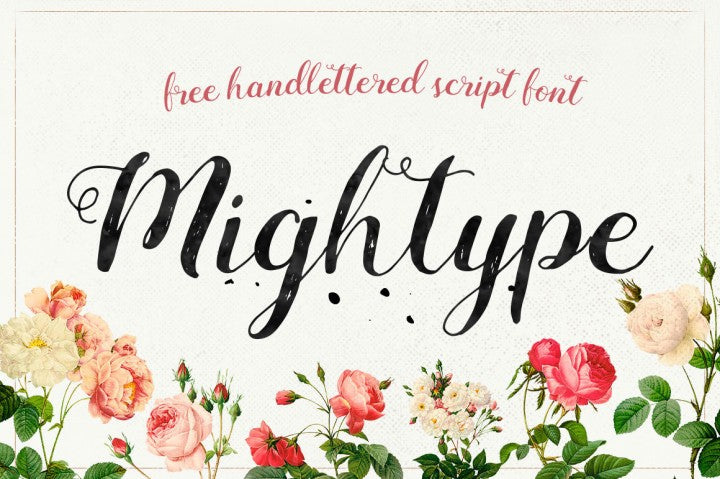
Free Font Mightype Script
Grab this miraculous free font mightype script into your repertoire. Give a boost to your designer life. Download this typeface from the original source of The Hungry JPEG. You can create a professional designs with this beautiful font.